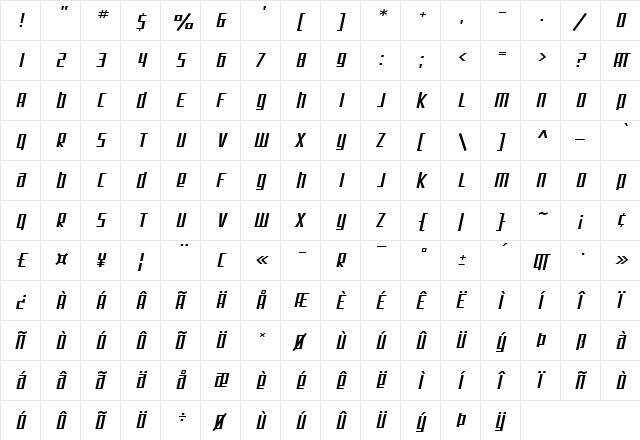
SF Square Root Extended Oblique
Design Context for SF Square Root Extended Typeface
SF Square Root Extended takes a measured approach to typography — its balanced proportions and neutral character make it a reliable workhorse for both digital and print work. The slanted form adds forward momentum and visual energy.
Pro Tip: Use SF Square Root Extended for emphasis, pull quotes, and subheadings where its slanted energy can add rhythm to the layout.